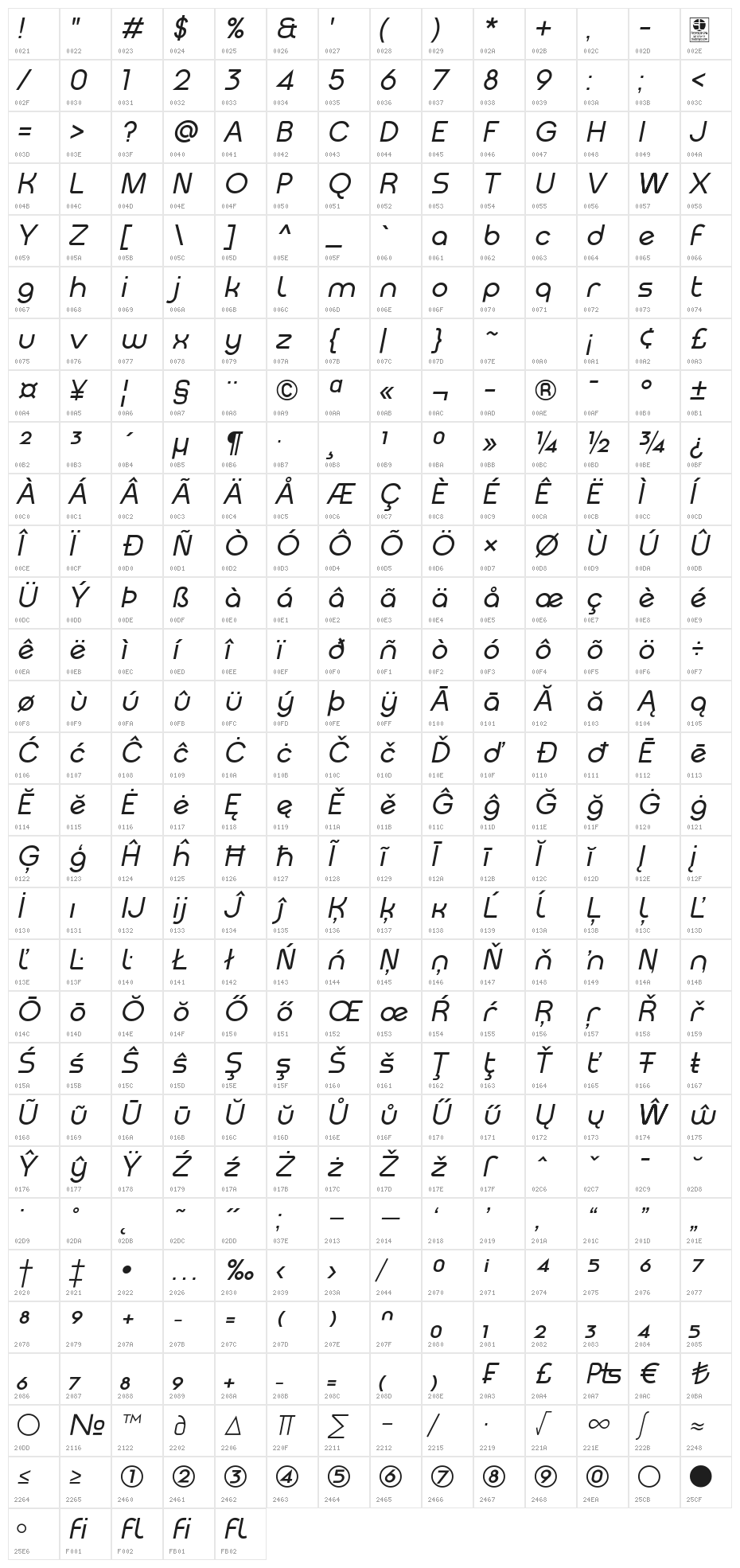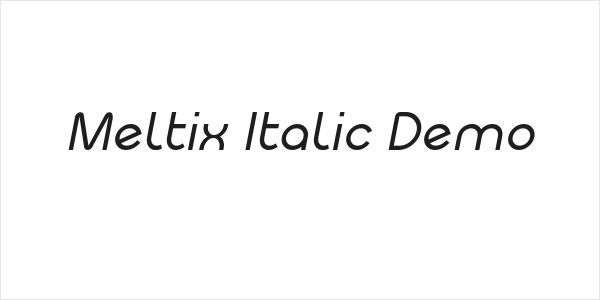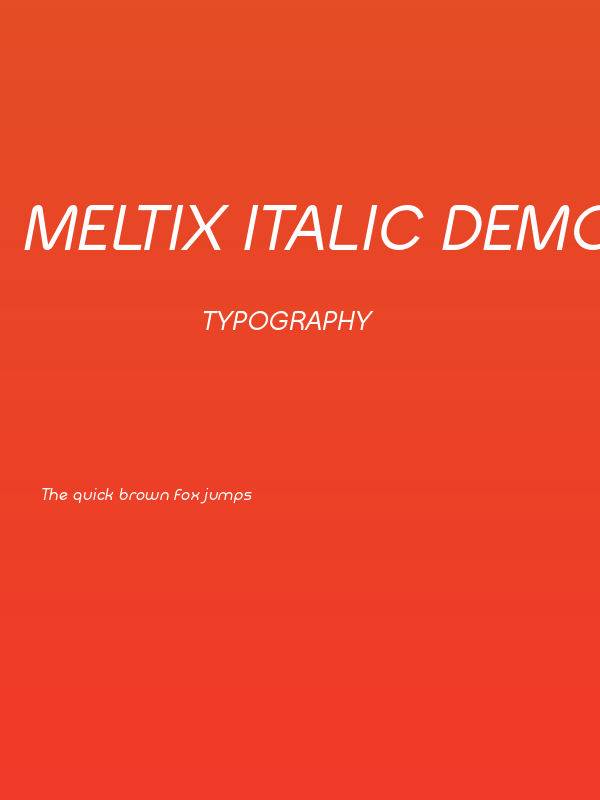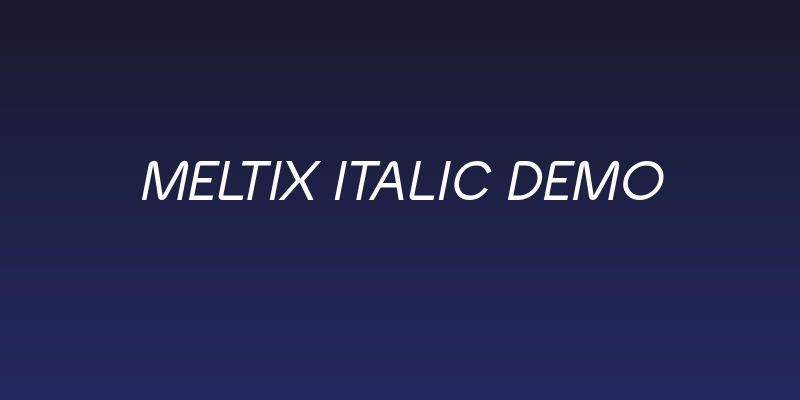
Meltix Italic Demo Font
Meltix Italic Demo Description
This font features a sleek, italicized design with a modern and streamlined appearance. The characters are slightly slanted, giving a dynamic and forward-moving feel. The strokes are consistent in width, providing a uniform look across all characters. The uppercase letters are tall and elegant, while the lowercase letters maintain a balanced and cohesive style. The numerals are clear and easy to read, making them suitable for various applications. Special characters are well-integrated, maintaining the overall aesthetic of the font.
| Use Case | Headlines, Logos, Digital Media |
| Proposed Projects | Ideal for branding, advertising, and digital media projects that require a modern and stylish touch. |